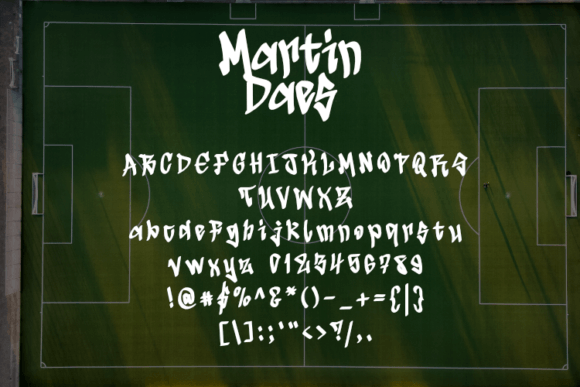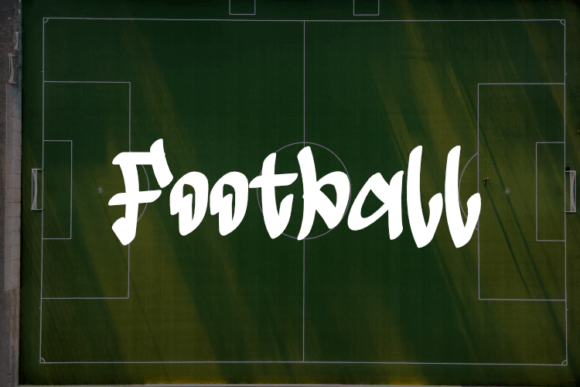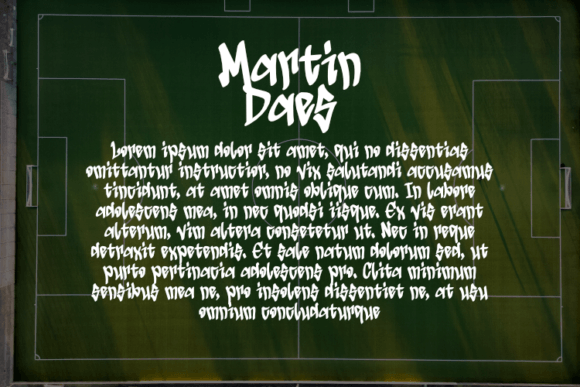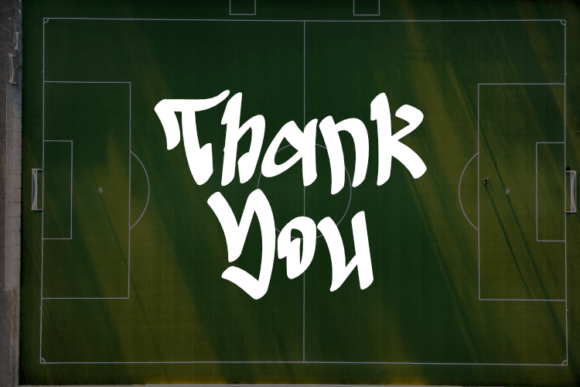
Introduction to Martin Daes Font
Remember the moment when you first saw a design that caught your eye? Maybe it was a clever combination of colors, a quirky illustration, or a simple yet effective typography. For many designers, that ‘aha’ moment often comes from using the right font – and that’s where the Martin Daes Font comes in. This free download has been a go-to design resource for creative projects, adding a touch of high-street fashion to any design.
As a designer, you understand the value of having the right tools at your fingertips. The Martin Daes Font is a high-quality addition to your design arsenal, offering seamless integration across various software platforms. With its transparent background and adaptable style, it’s perfect for imprinting clothing pieces, t-shirts, or any merchandise that requires a dash of elegance and cutting-edge style.
Key Features of Martin Daes Font
- High-quality typography for creative projects: Martin Daes Font is designed to provide a unique and stylish look for various design applications.
- Vector-based design: Martin Daes Font is a vector-based design, allowing for scalable and high-resolution output without loss of quality.
- Perfect for logos, titles, and headings: The font’s unique design makes it ideal for use in logos, titles, and headings in various creative projects.
Honest Review: Martin Daes Font
I recently stumbled upon the Martin Daes Font while searching for a free download to use in a creative project, and I must say it’s been a great find. This high-quality font has a unique, modern feel to it, making it perfect for any design project that requires a touch of sophistication.
One of the things that stands out about the Martin Daes Font is its versatility. It’s available in a range of styles, from bold to light, and can be used for both headings and body text. This makes it an excellent design resource for any project, whether you’re creating a logo, brochure, or website.
Here are some of the things that work well with the Martin Daes Font:
- ✨ High-quality design: The font is crisp and clear, with a professional finish that’s perfect for any creative project.
- ✨ Versatile: The font comes in a range of styles, making it suitable for a variety of design tasks.
- ⚠️ Limited character set: The font may not include a comprehensive character set, which could be a problem for designers who need to use non-English characters.
- ⚠️ No transparent background: The font doesn’t support transparent backgrounds, which could limit its use in certain design projects.
Overall, I’m impressed with the Martin Daes Font. While it may have some limitations, its high-quality design and versatility make it an excellent design resource for any project. I’d definitely recommend it to fellow designers looking for a free download to use in their creative projects.
The Martin Daes Font is a versatile design resource that can be used for a wide range of creative projects, including social media graphics, presentations, logos, and more. It’s a great resource for designers, marketers, and anyone looking for a high quality, free font.